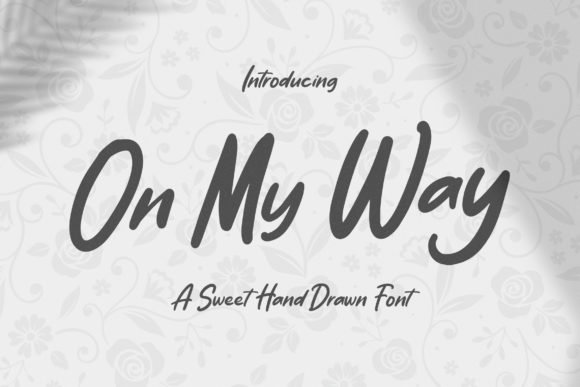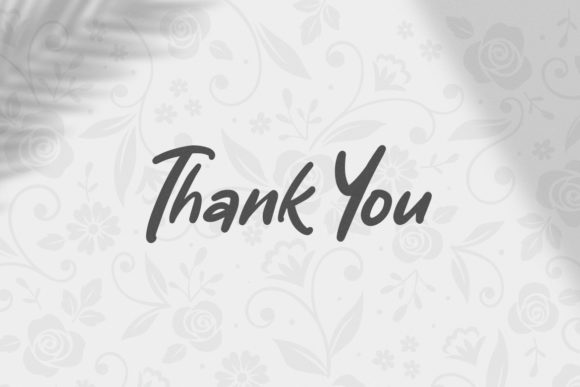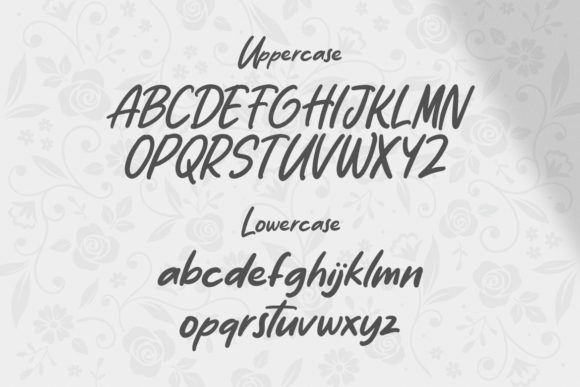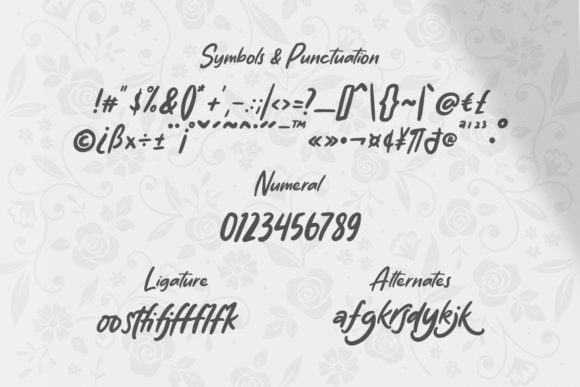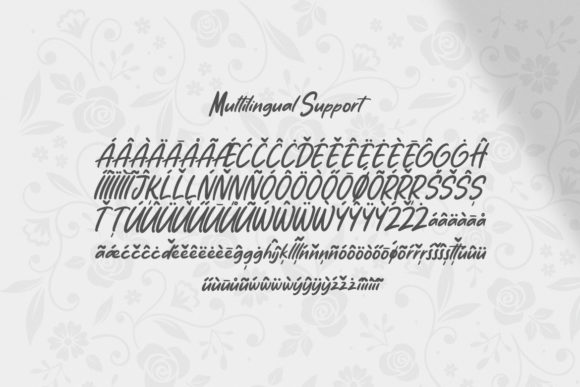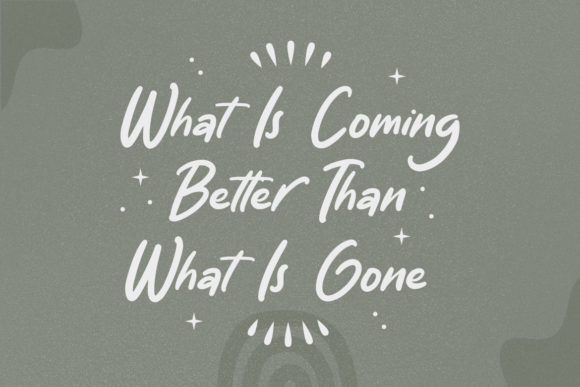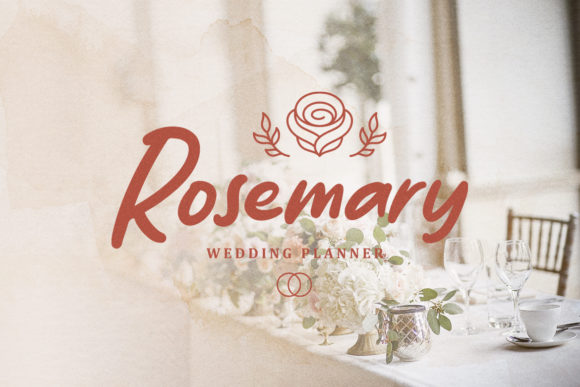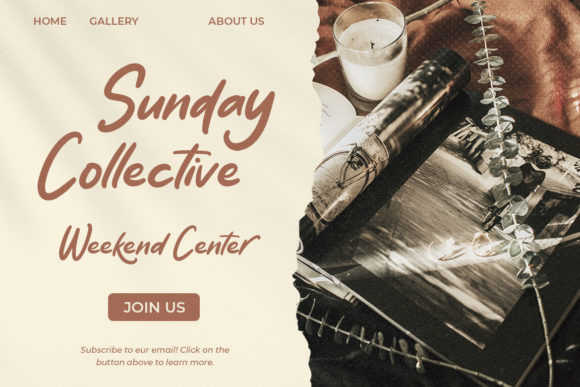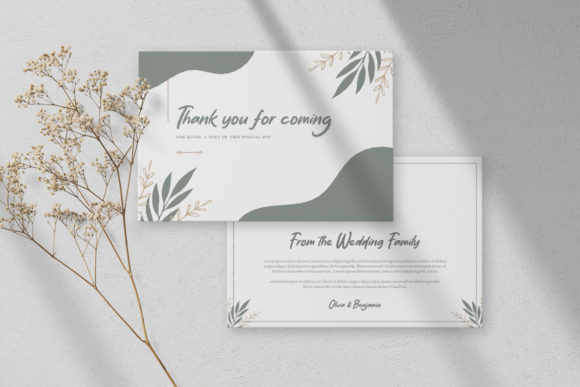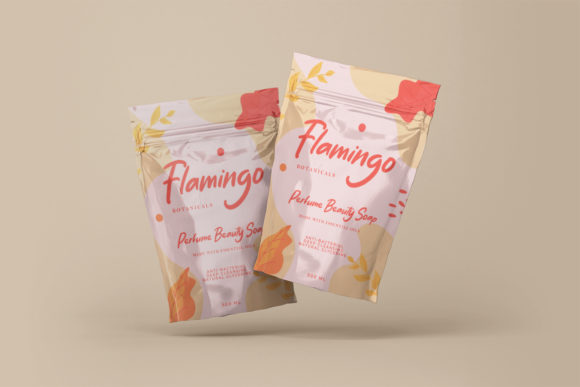
On My Way Font
About On My Way Font
On My Way is a sweet paint brushed handwritten font. Its distinct and well rounded letters make this font a masterpiece. Fall in love with its incredibly versatile style and use it to create spectacular designs!